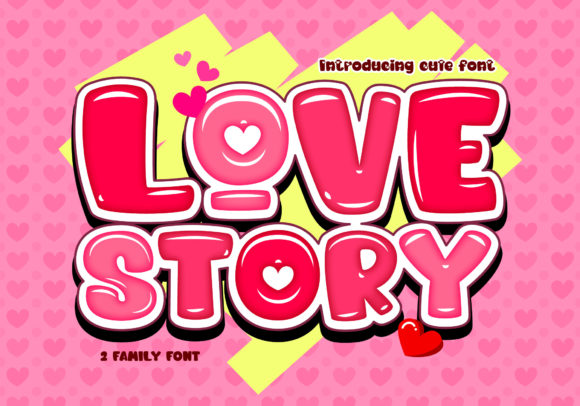
Introducing the Love Story Font, a bubbly, chunky lettered and friendly display font that is sure to add a touch of playful authenticity to your next project. Created by BB Type Studios, this font is a must-have for anyone looking to add some personality to their designs.
With its fun and whimsical vibe, Love Story is the perfect choice for any children's activity or elementary school design. Whether you're creating invitations for a birthday party or designing flyers for a school event, Love Story's playful charm will bring your designs to life.
But don't let its childlike innocence fool you, Love Story is also a great choice for more mature designs. Its bold, chunky lettering is perfect for creating eye-catching headlines and attention-grabbing marketing materials.
So why choose Love Story? Well, for starters, it's the best font for Valentine's Day letters! Its bubbly, friendly lettering embodies the spirit of the holiday and is sure to put a smile on anyone's face. But Love Story is more than just a Valentine's Day font, it's a versatile font that can be used for a variety of projects.
Love Story is also incredibly easy to use. Its chunky lettering makes it easy to read, even from a distance, and its playful charm will captivate your audience. Plus, with its keyword-rich design, Love Story is perfect for boosting your SEO rankings and getting your designs noticed.